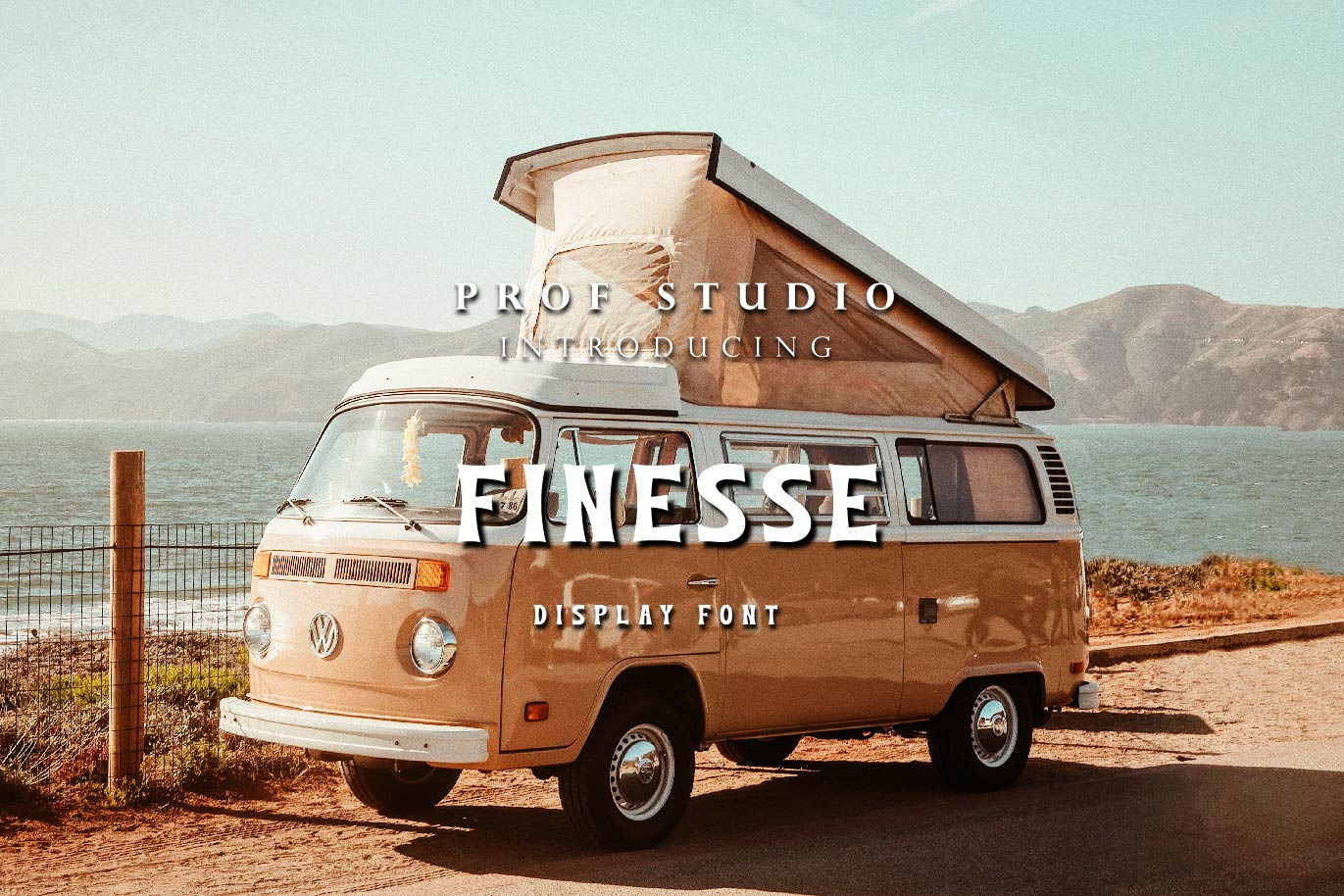
Finesse - Retro Display Font
Finesse - Retro Display Font which can be interpreted professional. we keep this font looks modern, luxury, readable, stylish, catchy and easy to use.
Finesse - is the great choice for event design ,magazine, brand design, invitation, and many other design project. Finesse here to make your work to high level!!!